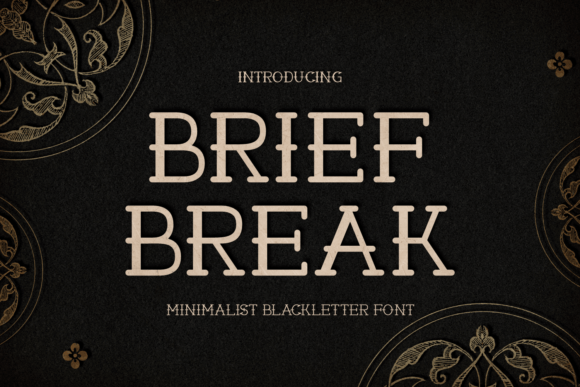
Introduction to Brief Break Font
Brief Break is a minimalist blackletter font with serifs.
Elegant and versatile, this lovely typeface is perfect for bringing your creative ideas to life You can use it to create stylish logos, posters, product packaging, advertisements, t-shirts, websites, and more.